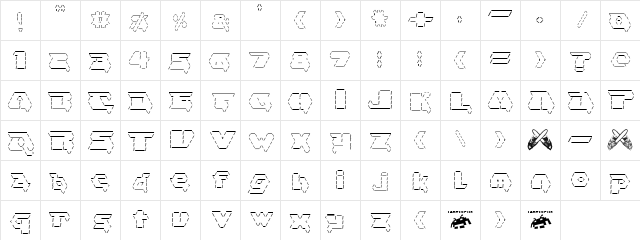
asciid Regular Free Font
asciid Regular
Foundry: xero harrison
Designer: xero harrison
Design Context for asciid
asciid is a composed and adaptable typeface that performs quietly and consistently across a wide range of design contexts.